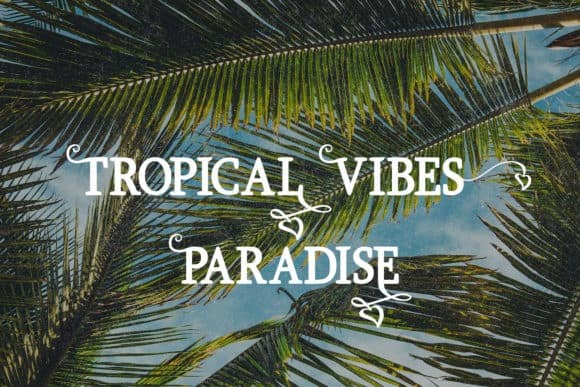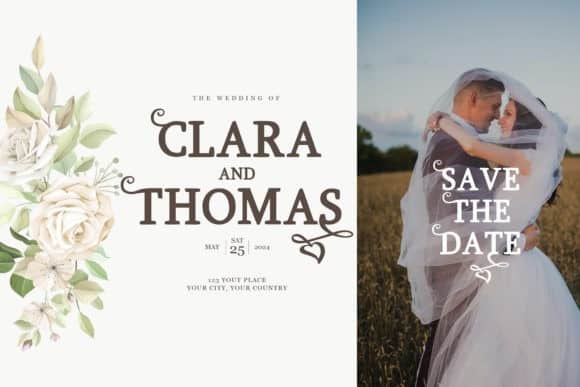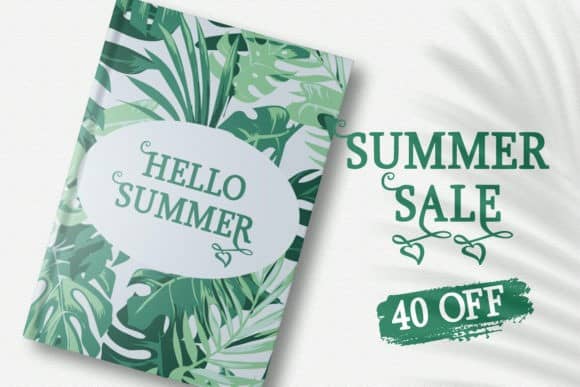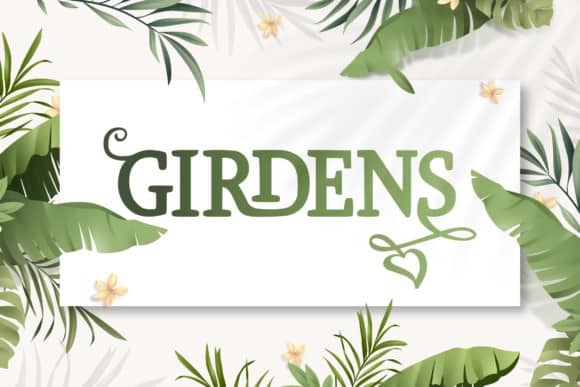
Girdens Display Font is an elegant modern minimalist typeface. Loaded with beautiful ligatures, lots of custom alternative glyphs, ornaments and multilingual support. This is a very versatile font that works well in large and small sizes. This playful typeface will look truly outstanding in a wide range of contexts. Mireille is an effective set for creating identities for branding, posters, book covers, headlines, logotypes, restaurants, menu cards, wedding invitations and so on.
Girdens